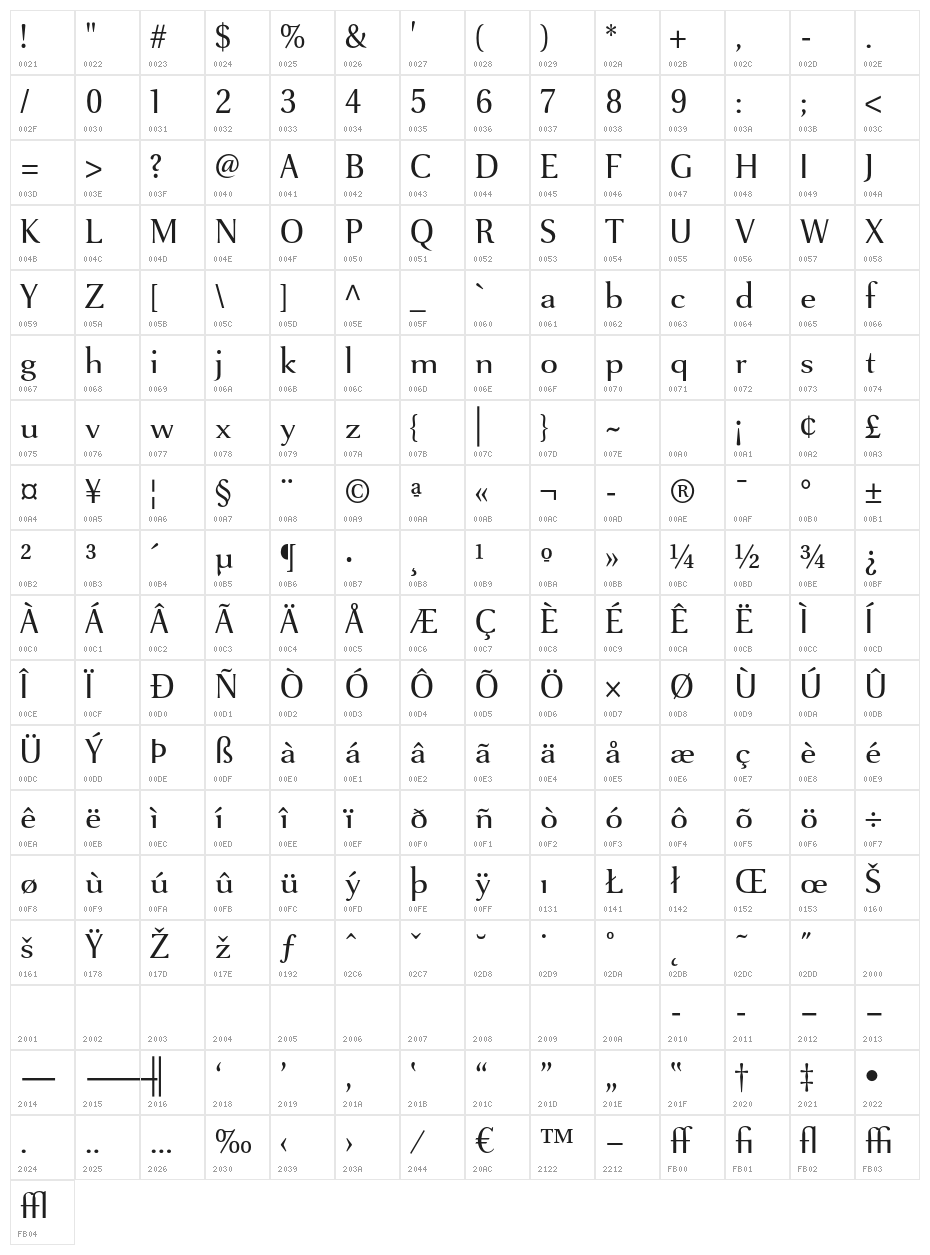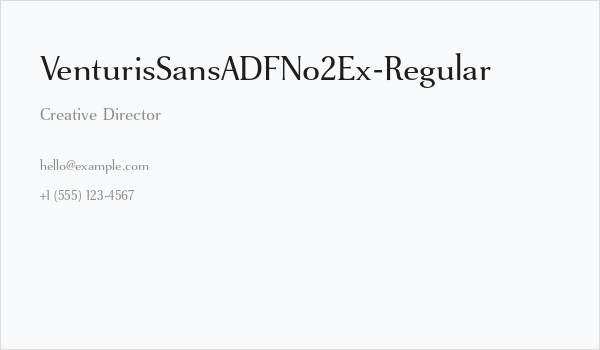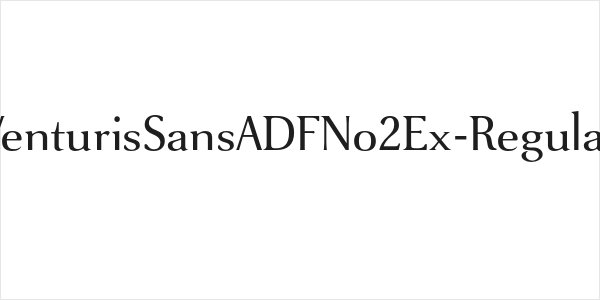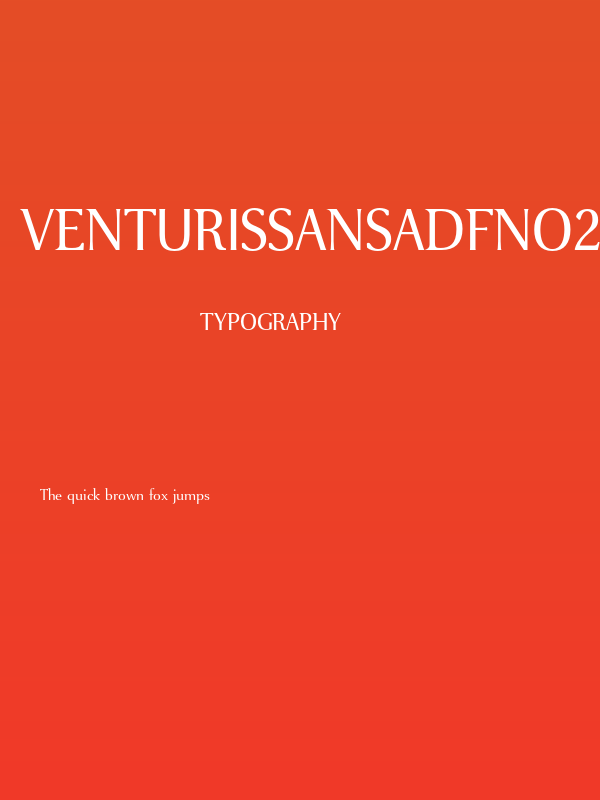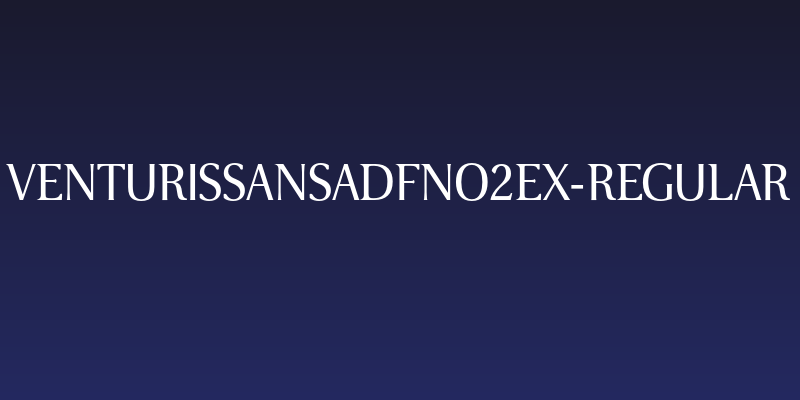
VenturisSansADFNo2Ex-Regular Font
VenturisSansADFNo2Ex-Regular Description
This typeface presents a refined and elegant serif style, characterized by its balanced proportions and classic appeal. The uppercase letters exhibit a strong presence with slightly flared serifs, while the lowercase letters maintain a harmonious flow with subtle curves. The numerals are clear and distinct, ensuring readability. Special characters are crafted with precision, adding to the font's versatility. The overall design exudes a timeless sophistication, making it suitable for a variety of applications.
| Proposed Projects | Ideal for editorial design, book covers, formal invitations, and branding projects that require a touch of sophistication. |